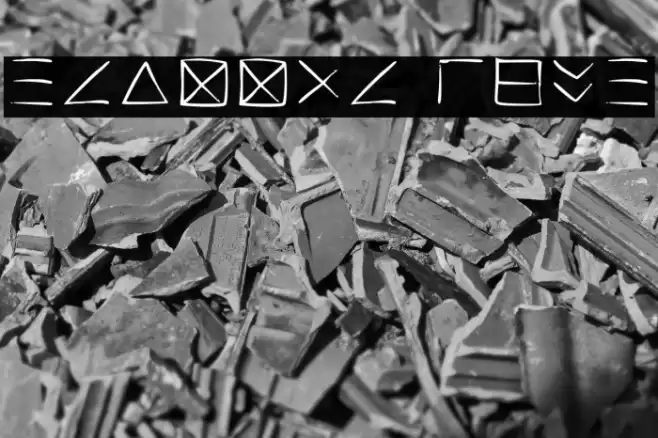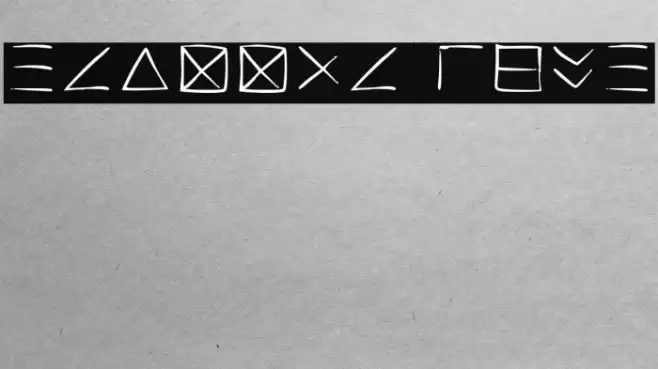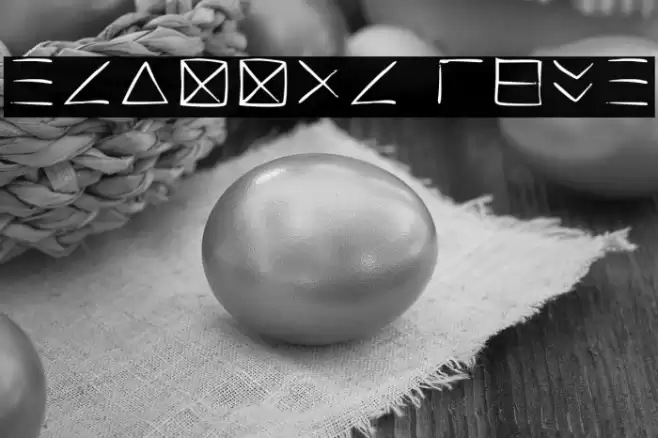
Transcription Regular Font
Transcription Regular Description
This font features a series of abstract and geometric shapes that replace traditional alphanumeric characters. The design includes rectangles, triangles, and other angular forms, creating a highly stylized and modern appearance. The characters are uniformly sized, maintaining a consistent height and width across the set. The font's unique style makes it suitable for artistic and creative projects where a non-traditional look is desired. It lacks conventional readability, focusing instead on visual impact and design aesthetics.
A geometric and abstract font with non-traditional characters from Dingbats fonts.
- Proposed Projects: Ideal for artistic designs, modern art projects, creative branding, and abstract visual presentations.
- Use Case: Logos, Artistic designs